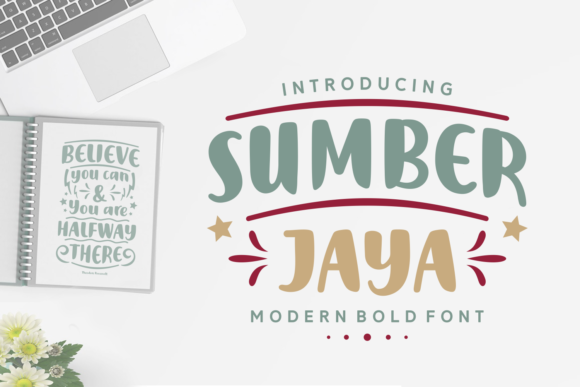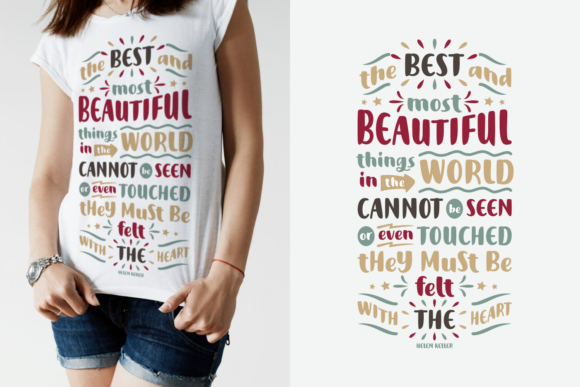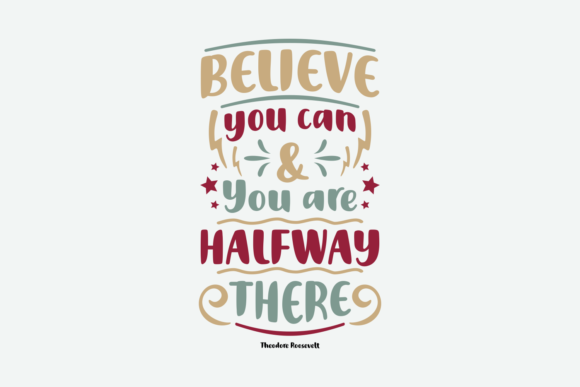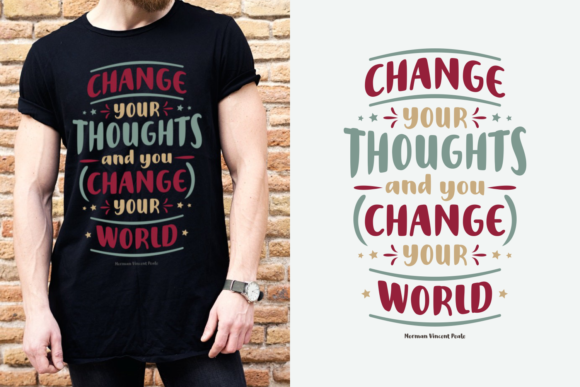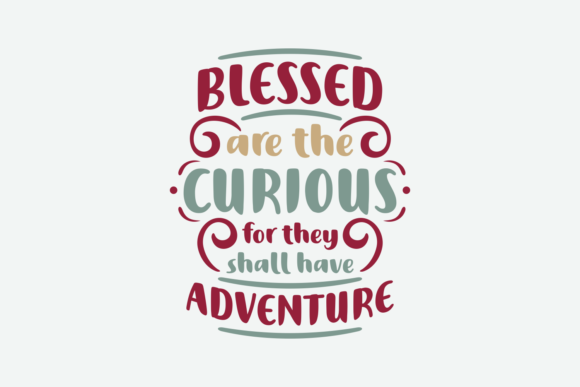
Sumber Jaya Font
Sumber Jaya is a beautiful and stunning handwritten script font, perfect for hip and modern designs. This font is a great way to add some understated elegance to your works.